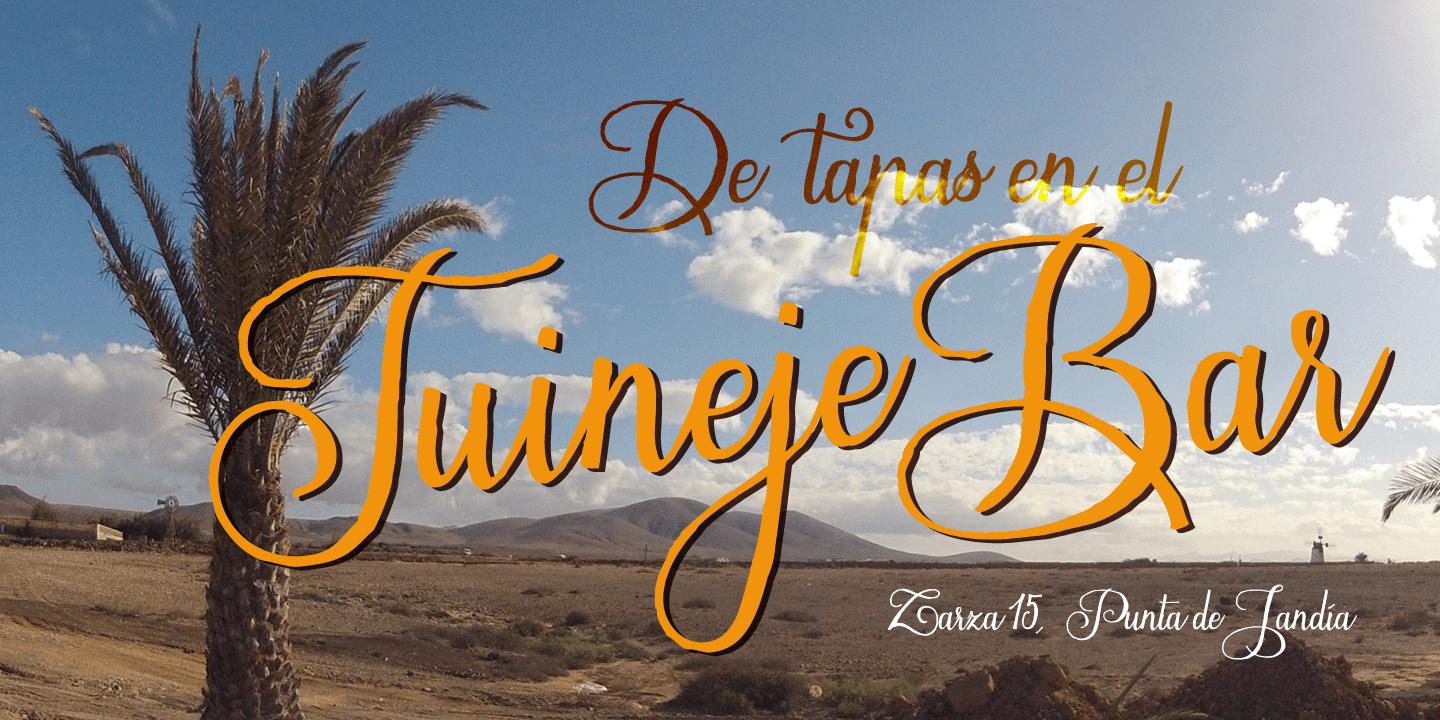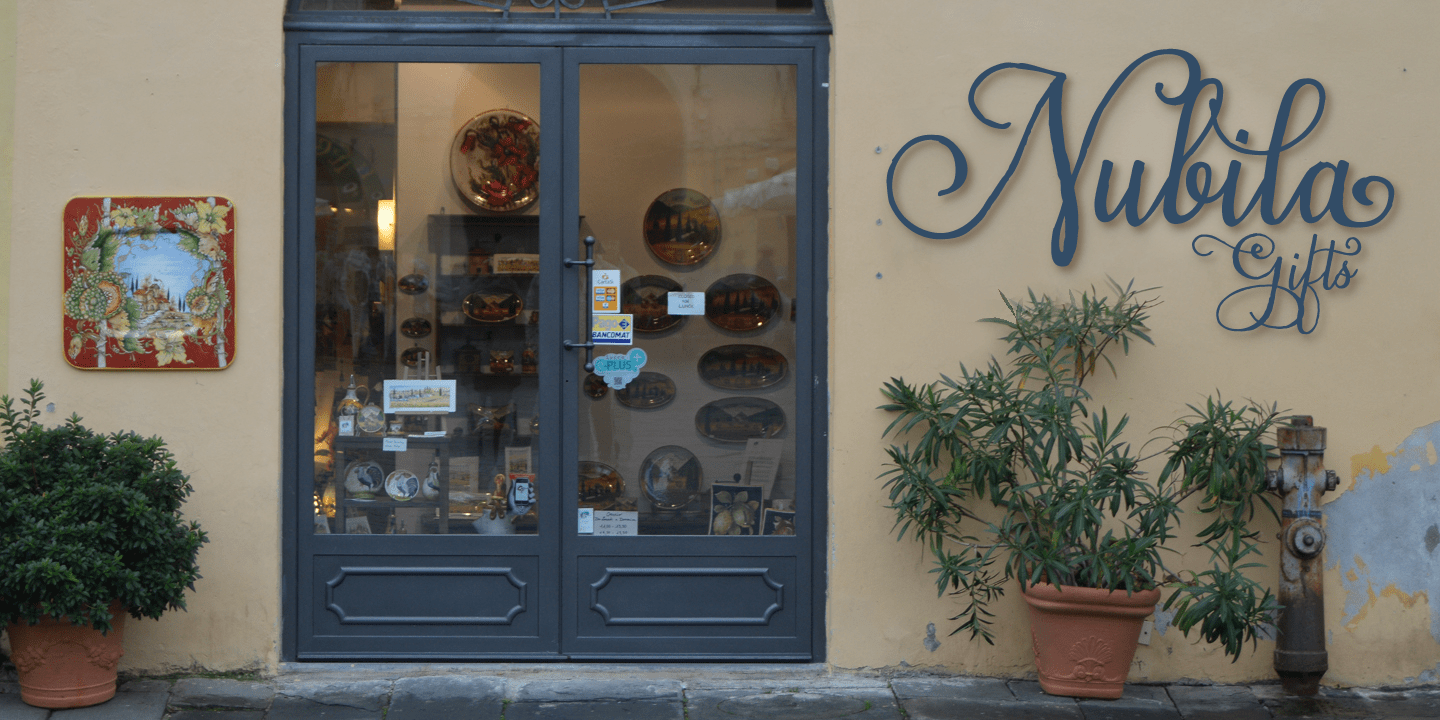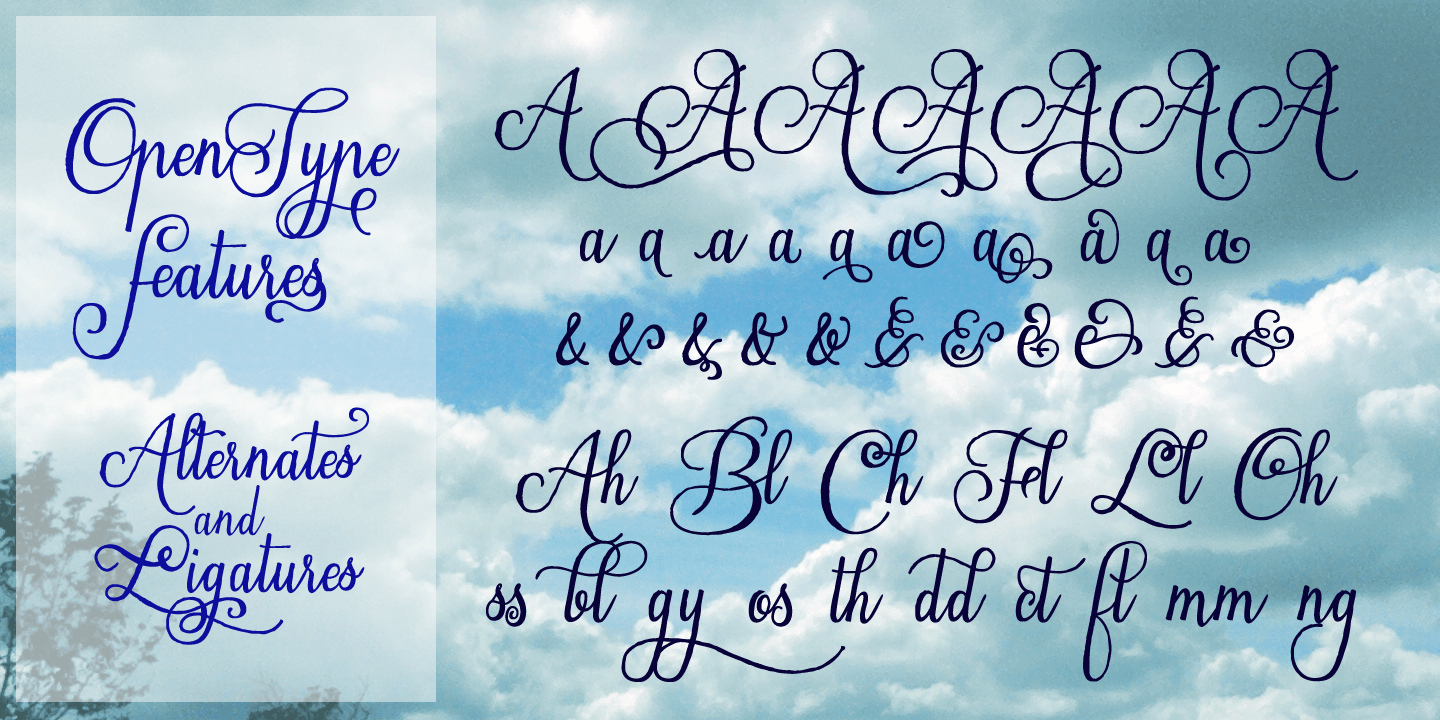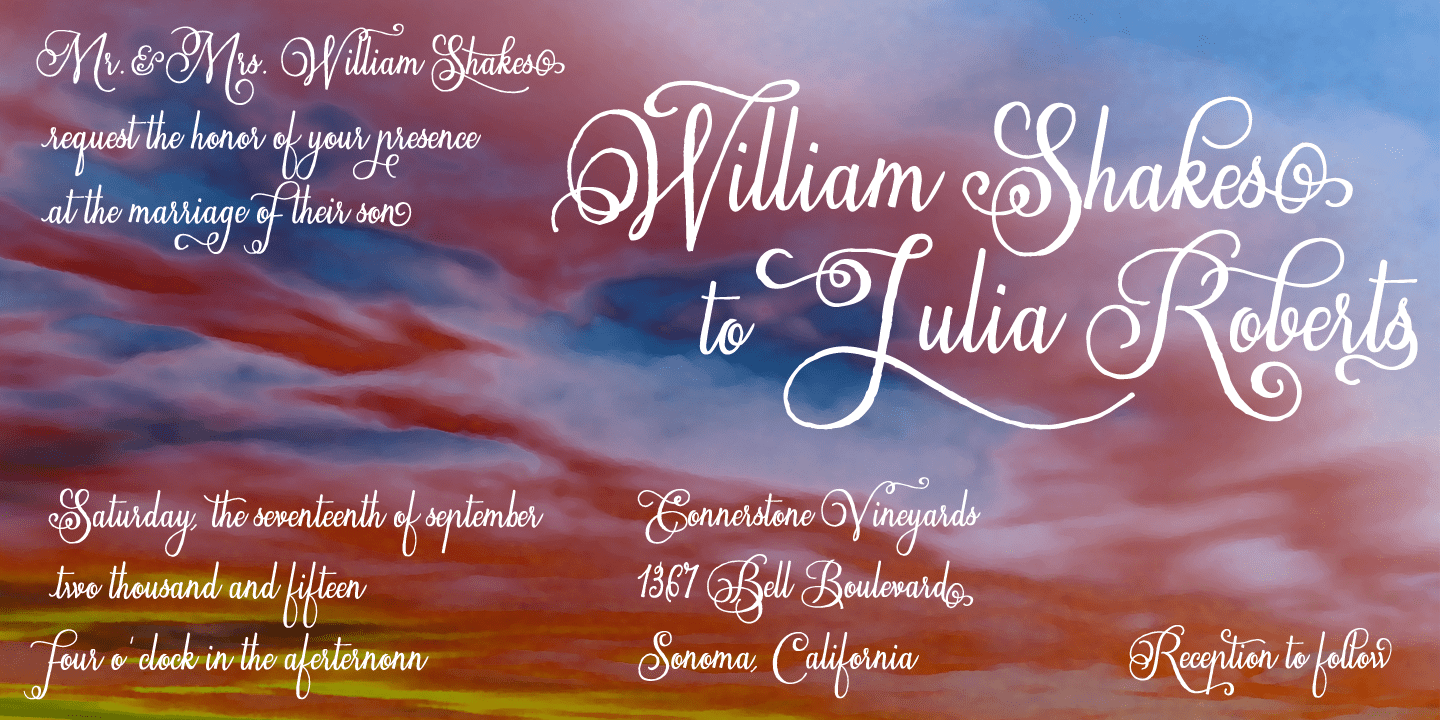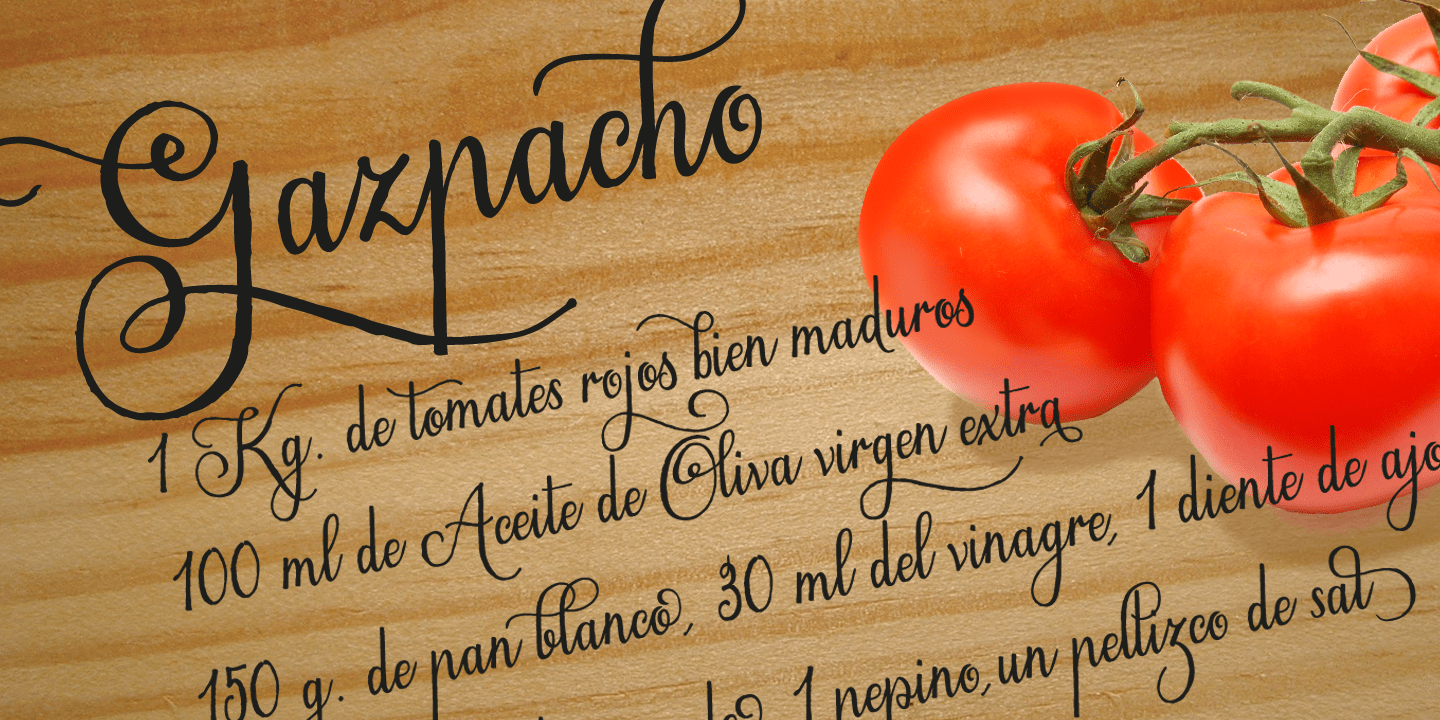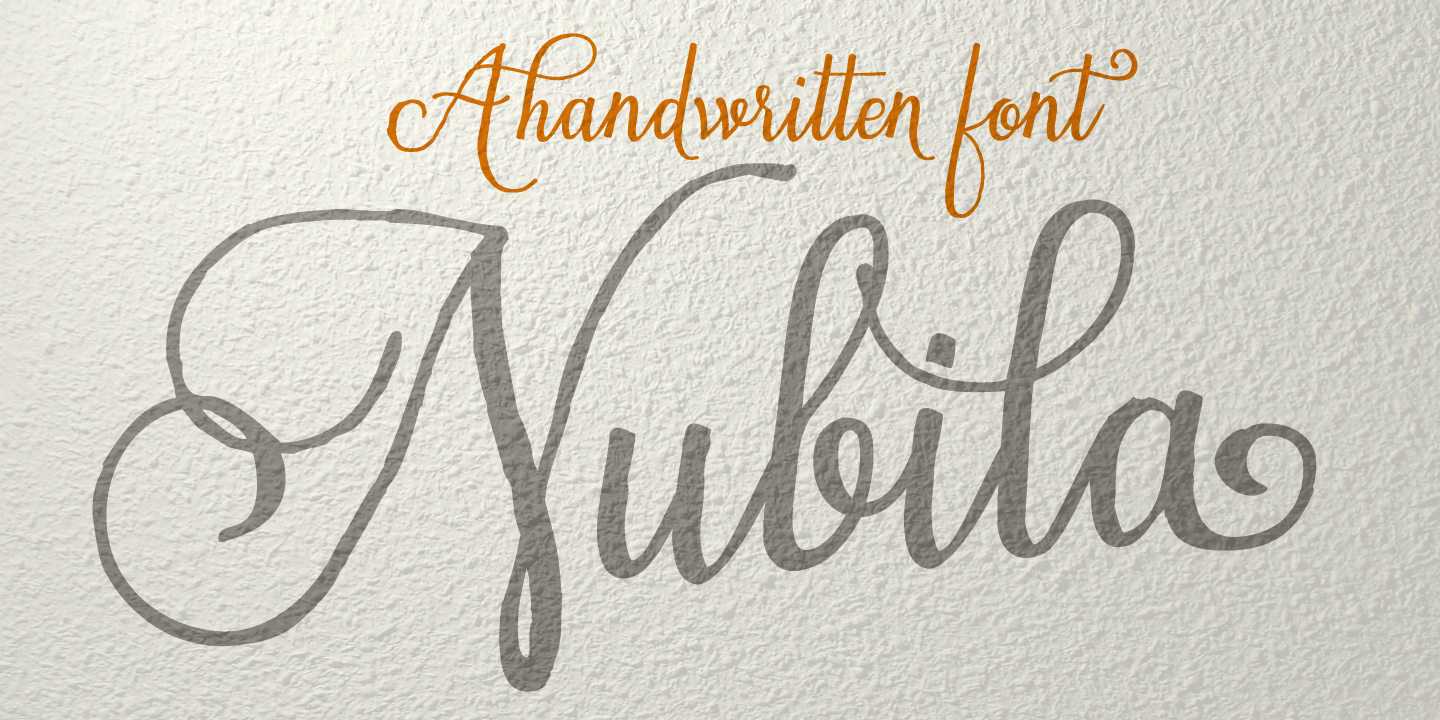
Nubila
Buy NowNubila is a casual script with a handwritten feel, giving layouts a warm, personal, and easygoing look. Its flowing letterforms make it a natural fit for work that wants charm without feeling overly formal or fussy.
With a single style in the family, this typeface is well suited to display use where personality matters most—think branding, packaging, social graphics, invitations, and other creative pieces that benefit from a relaxed script voice. If you’re looking for lettering that feels approachable and expressive, Nubila offers a clean way to bring that tone into your design work.